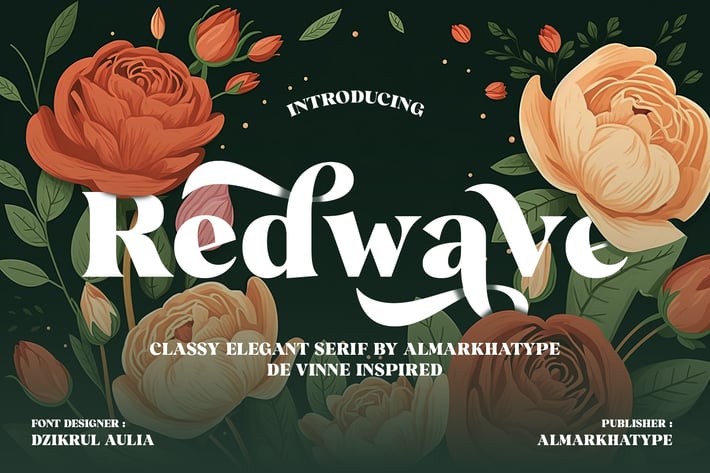
Redwave – Stylish Serif Font
Introducing Redwave – a Luxurious Serif Display font exuding elegance and sophistication. Support with alternate characters, swashes, and multilingual. This font is really stylish and inspired by fashion and beauty logos, Redwave is perfect for designing templates, brochures, videos, advertising, branding, logos, and more.
Add a unique twist to word-mark logos, monograms, or pull quotes with Redwave. Elevate your designs with its timeless charm and refined aesthetics. Craft stunning visuals that leave a lasting impression with Redwave.
+ Ligatures glyphs
+ Alternate glyphs
+ International Accent